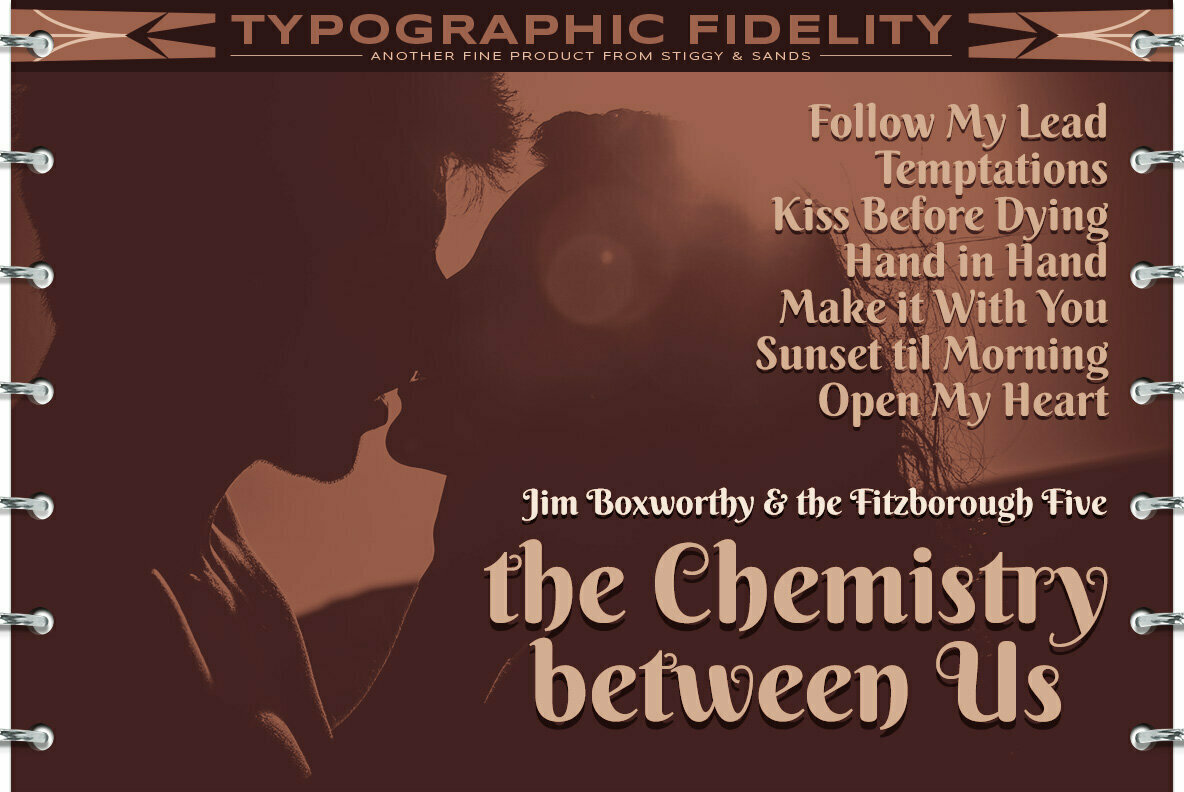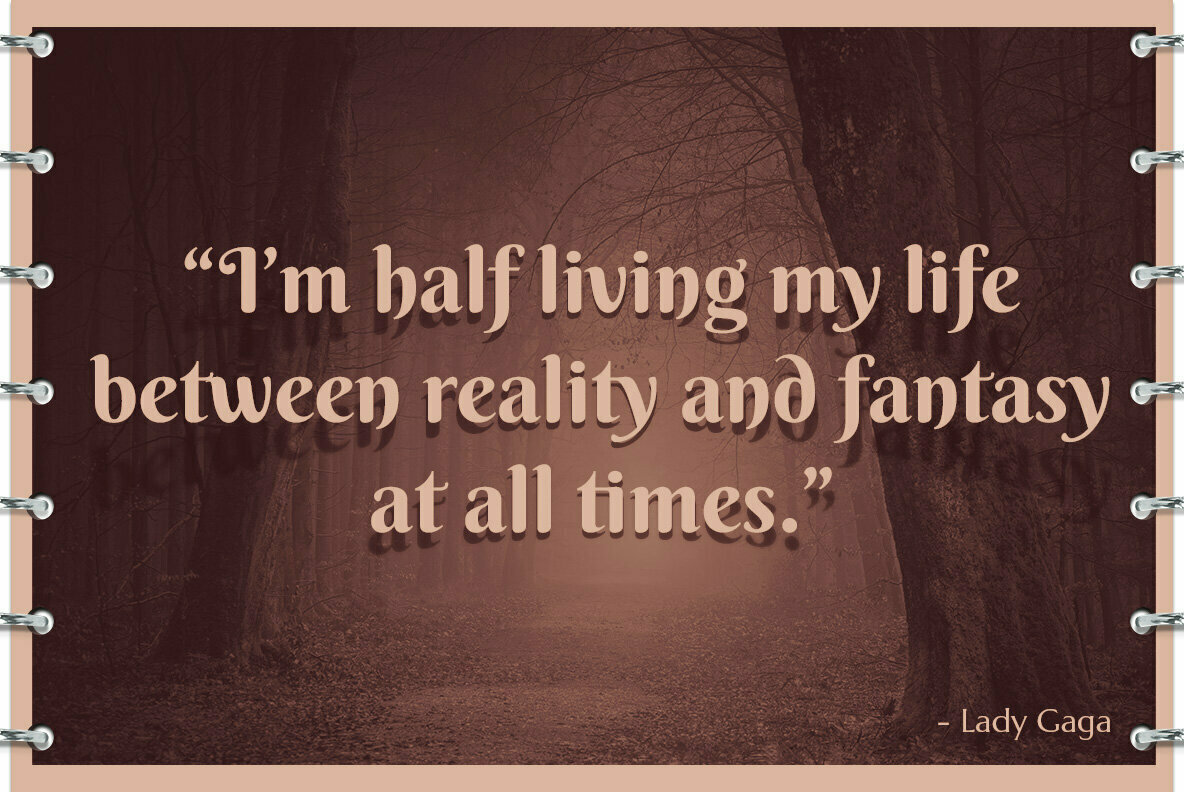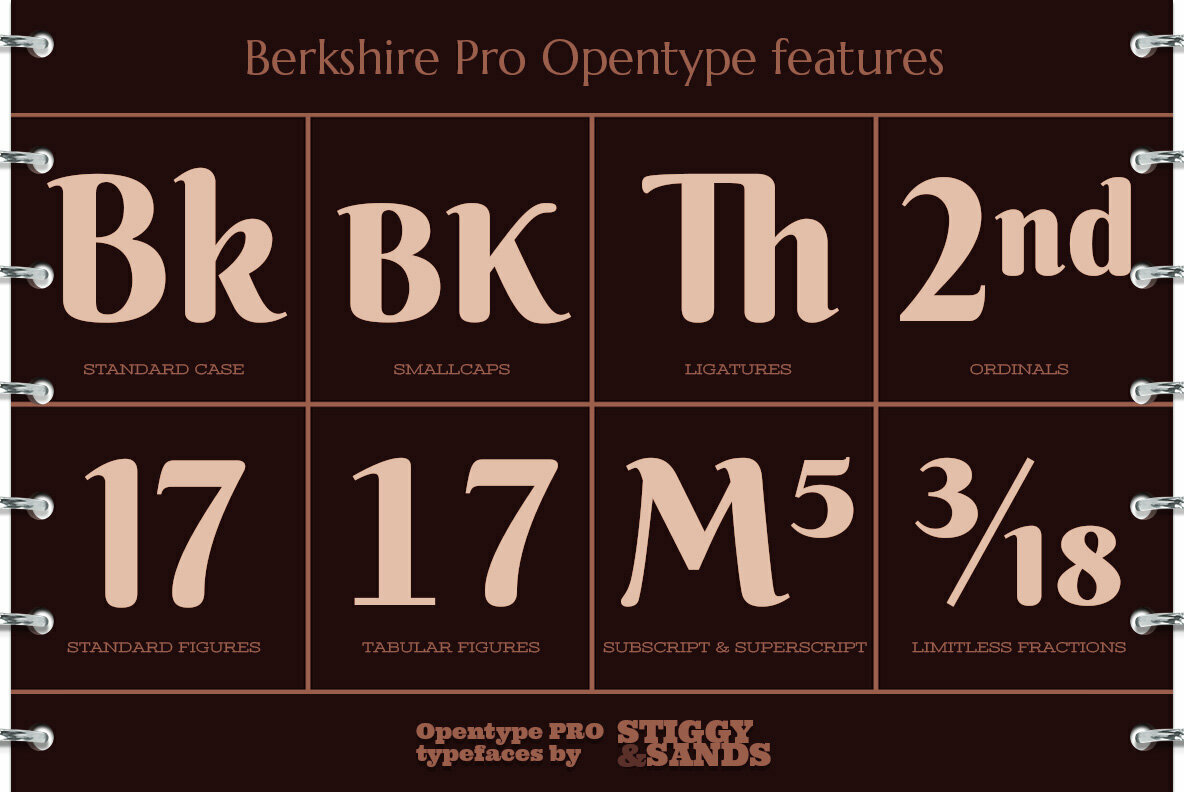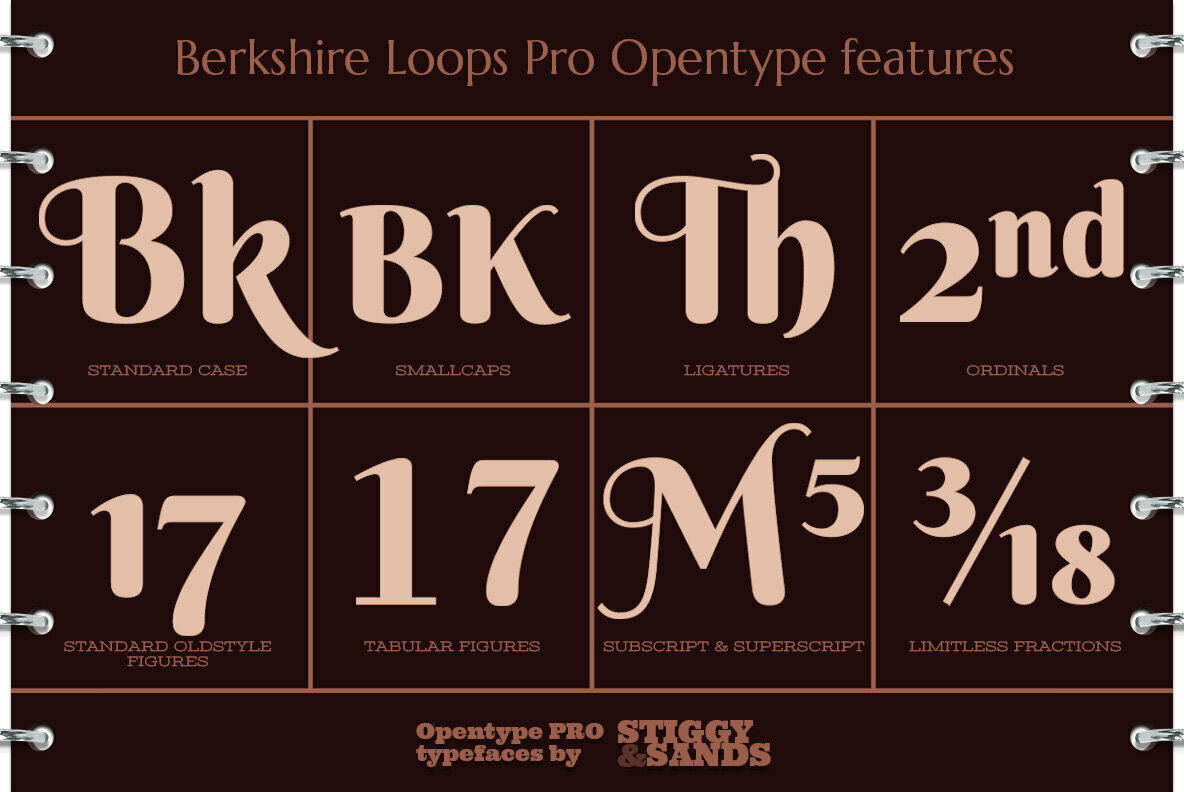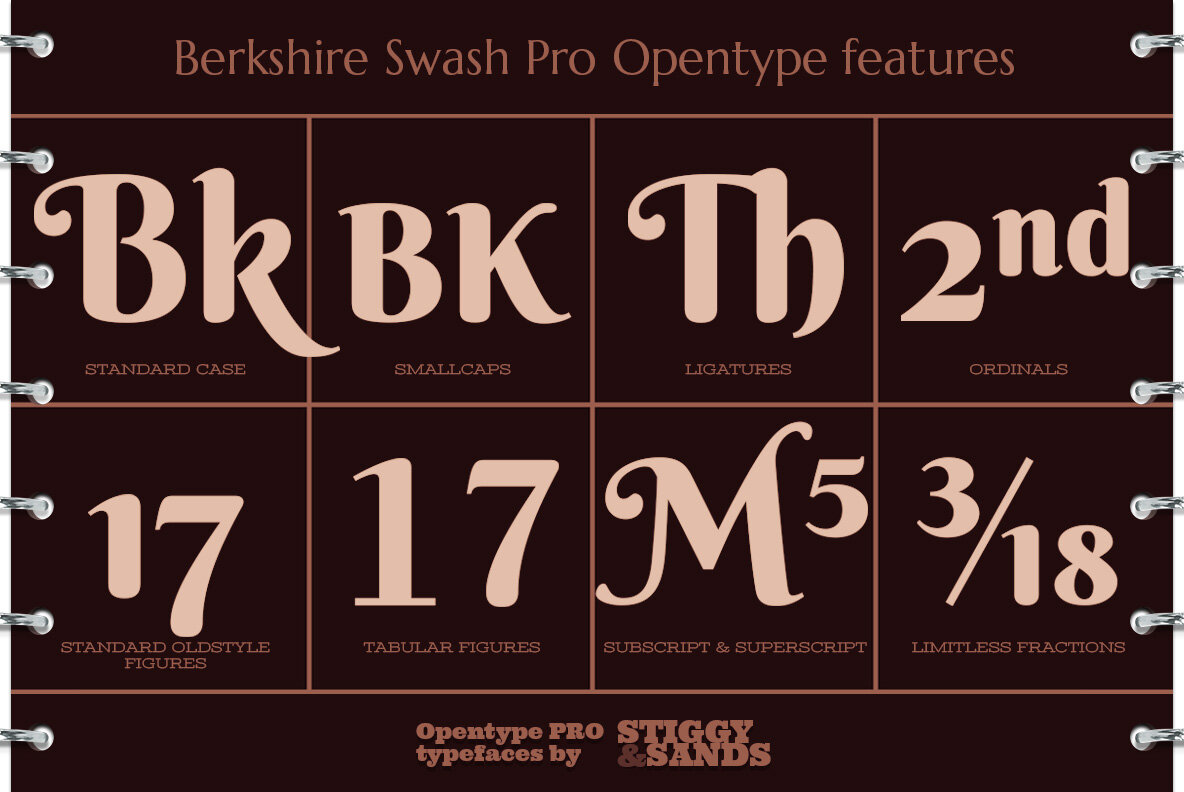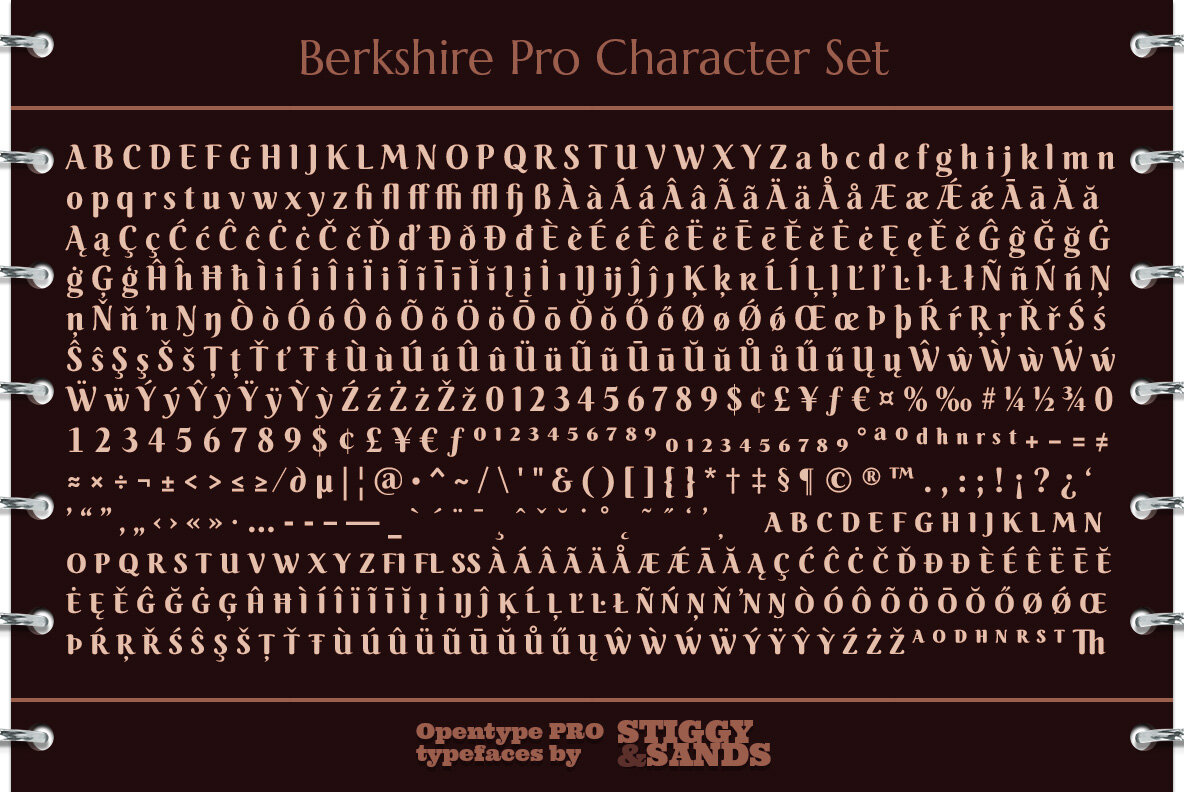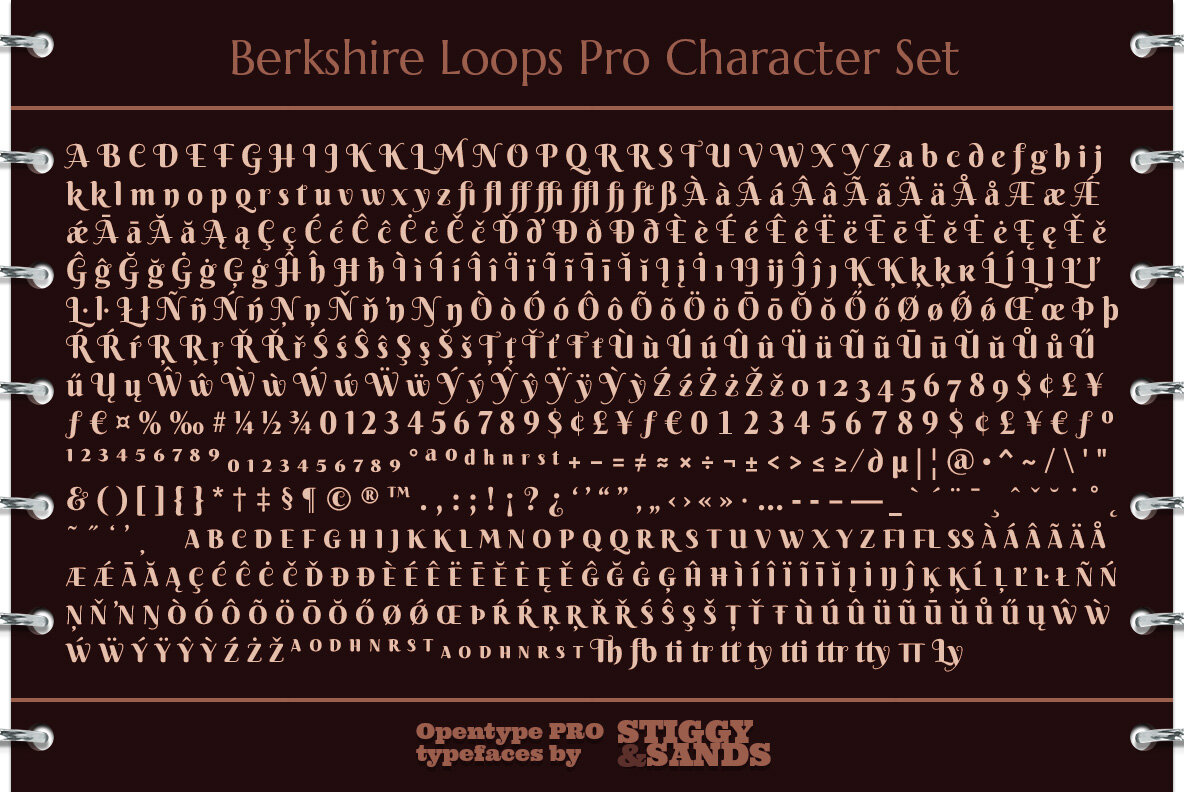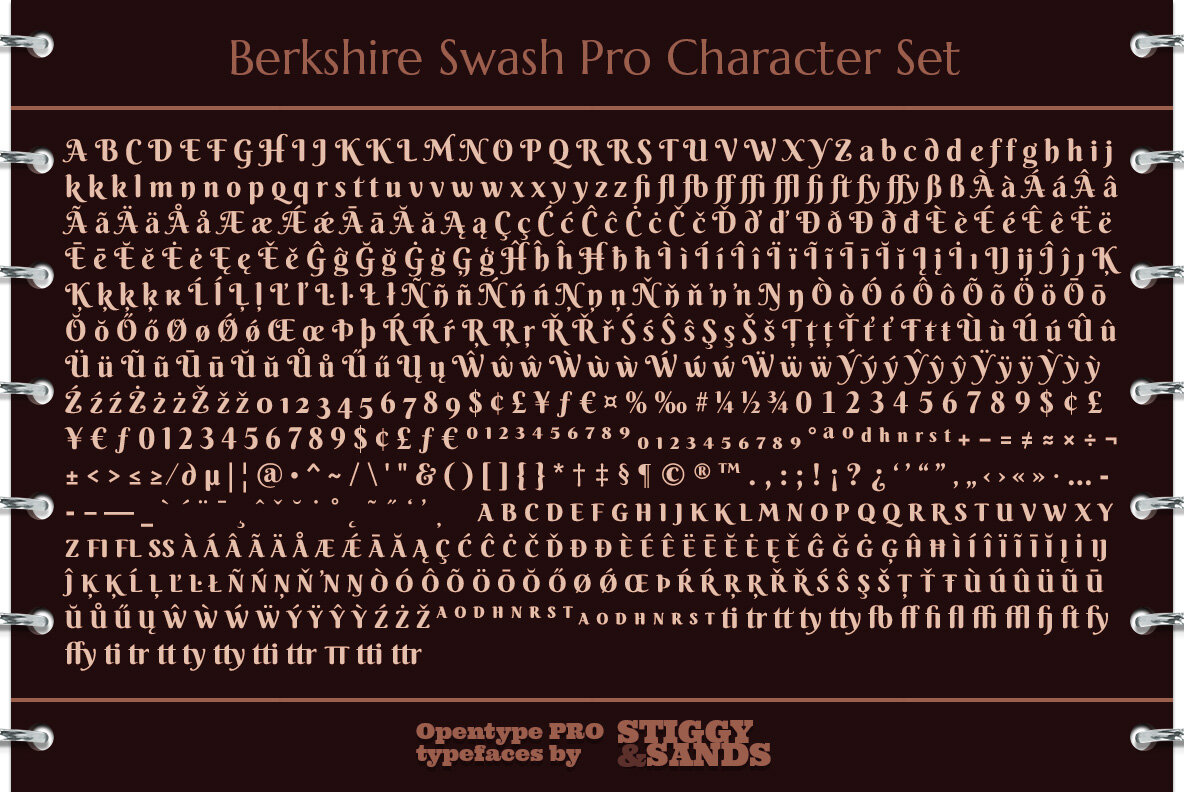
Berkshire Pro Font
From Swashes to Standards to Loopy.
The Berkshire Pro family began with Berkshire Swash Pro, an alluring semi-sweet typestyle with a bold yet feminine flair to it. But from the beginning, this was always meant to be a trio family. Finally this family is complete with Regular, Loops, and Swash Pro styles.
These delightfully friendly letterforms in each variant lend themselves to many uses, and as a family open up even more possibilities for combining amongst themselves and with other fonts for designs. From romantic intents to chocolate factories.
Opentype features include:
- A collection of ligatures.
- Smallcaps.
- Full set of Inferiors and Superiors for limitless fractions.
- Tabular, Proportional figures for Berkshire Pro, and Oldstyle figure sets for Loops & Swash Pro.